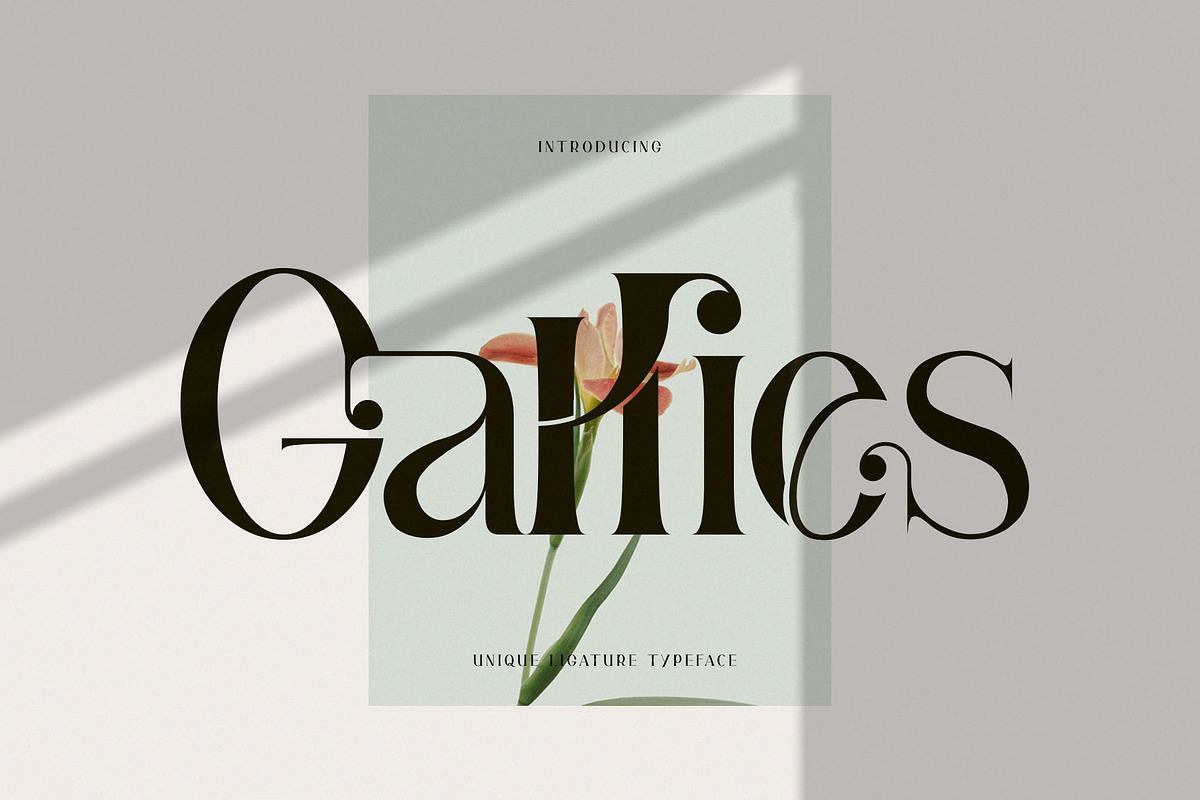
Gallies Ligature Serif Typeface Free Download is a bold and elegant serif font with stunning ligature details that elevate any design it touches. This typeface is a dream come true for designers working on luxury branding, magazine layouts, high-end packaging, fashion editorials, and stylish web headers.
Crafted with precision and flair, Gallies blends classic serif structure with modern typographic finesse. The unique ligatures add a touch of creativity and rhythm, making your text look effortlessly chic. Whether used in logos or long-form content, Gallies brings undeniable sophistication.
Gallies Ligature Serif Typeface Free Download includes a full character set with upper and lowercase letters, numerals, punctuation, and those gorgeous ligatures that steal the show. It’s fully compatible with Adobe InDesign, Illustrator, Photoshop, and other major design software, so you can jump right into creating magic.